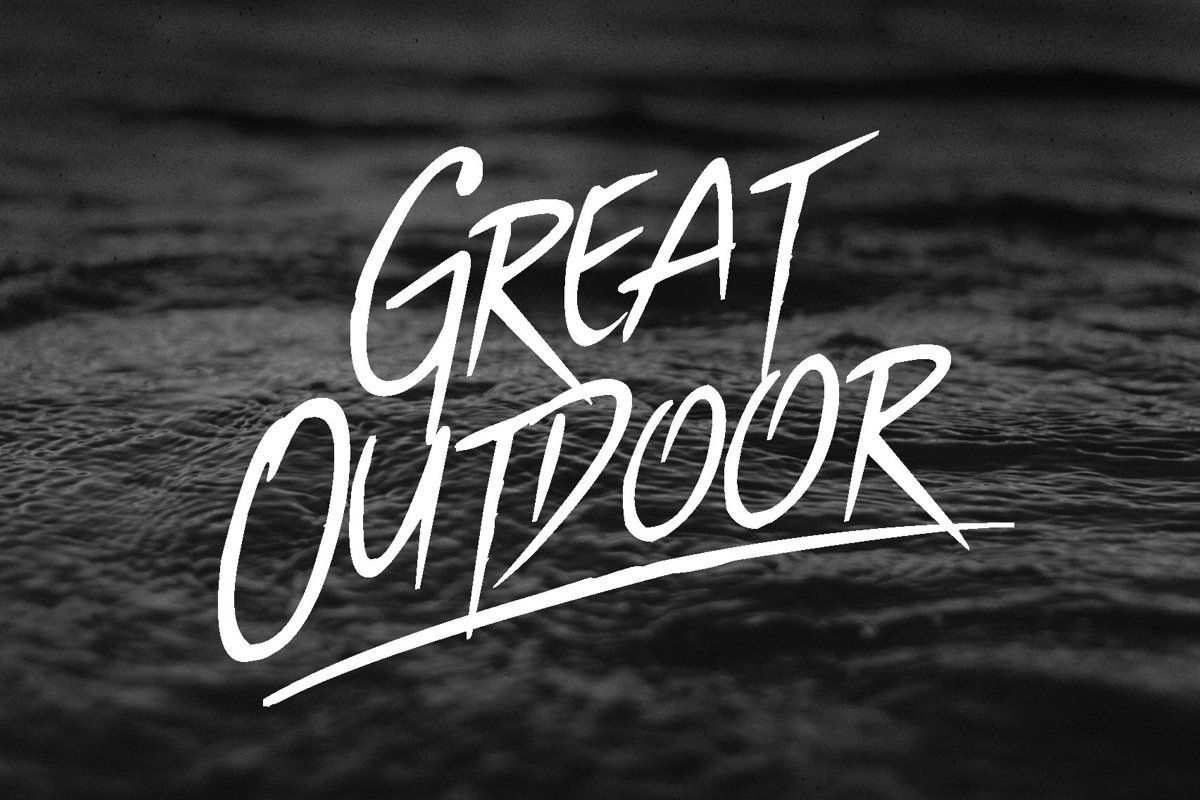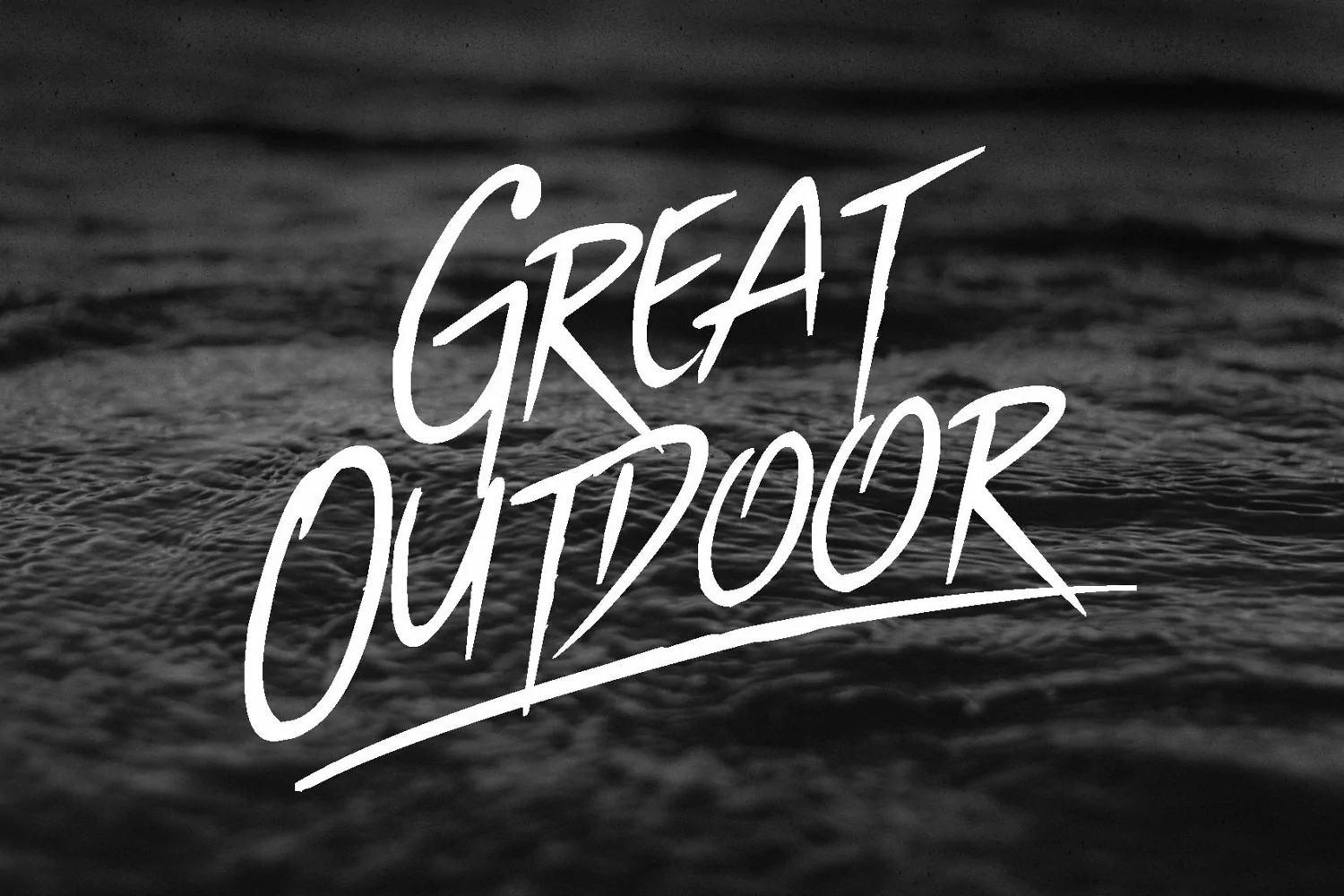
SCRATCH TYPEFACE The school tables inspire me to make this font. Many scratches i found on the tables. The Scratch comes with two styles ; Regular and italic.
- Underline Swosh ( Just type the name using lowercase)
- Stylistic Alternates